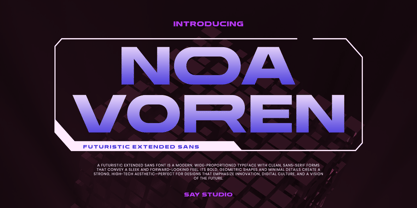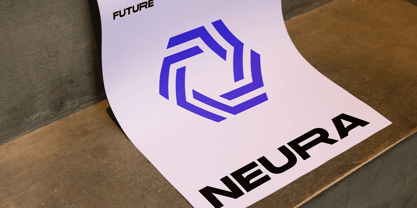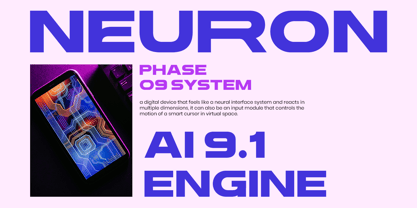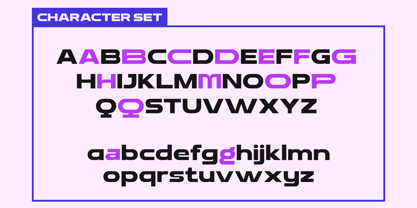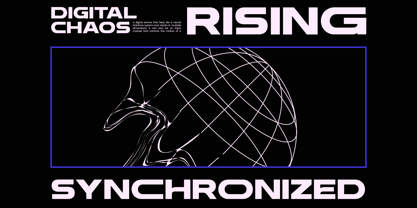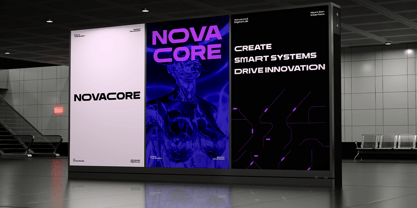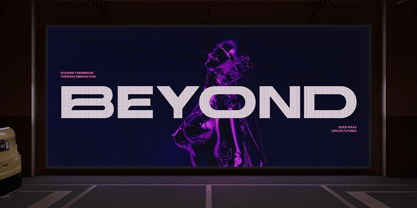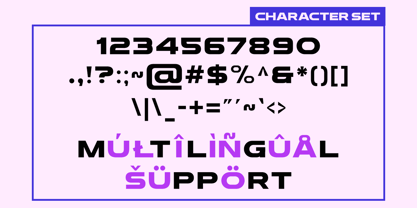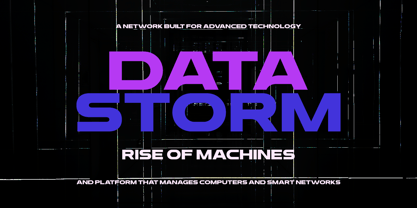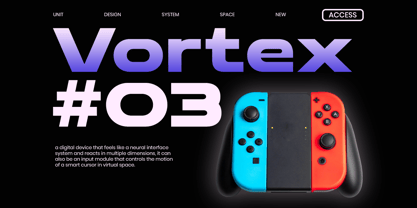
Noa Voren
von Say Studio
Noa Voren is a futuristic extended sans serif designed to deliver bold visual impact in modern digital landscapes. With its wide proportions, clean geometry, and sharp structure, this typeface captures the essence of speed, technology, and innovation. It’s built for designers who want their work to feel powerful, forward-thinking, and visually commanding.
Inspired by sci-fi aesthetics, cyberpunk visuals, and high-tech branding, Noa Voren excels in projects that demand attention. Whether you're creating gaming interfaces, movie titles, tech branding, or futuristic posters, this font provides a strong, cinematic presence that stands out effortlessly across both digital and print media.
Noa Voren is perfect for logos, headlines, UI/UX design, esports branding, and modern advertising. Its extended form enhances readability while maintaining a sleek and professional appearance, making it a versatile choice for creative professionals looking to push bold and futuristic design boundaries.
- Stylistic Extended Character Alternates
- Multilingual Support
Designer: Mussyayin
Foundry: Say Studio